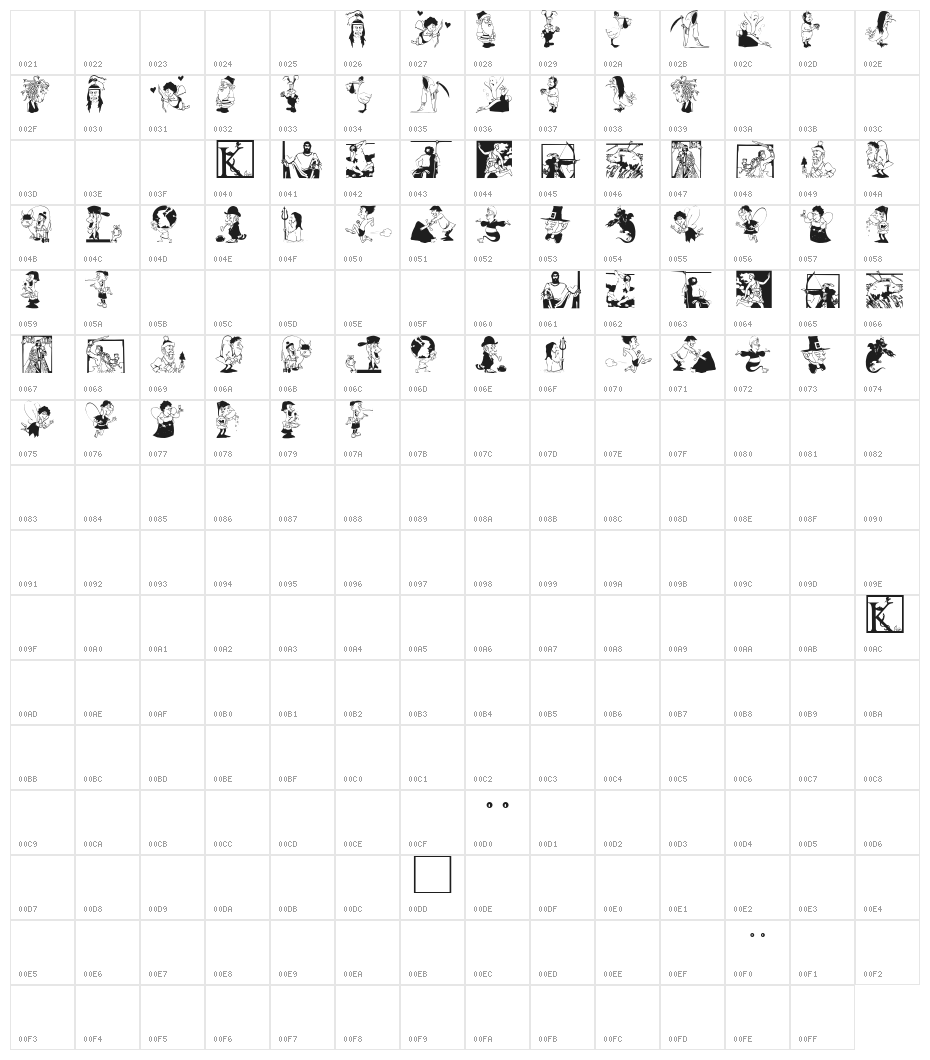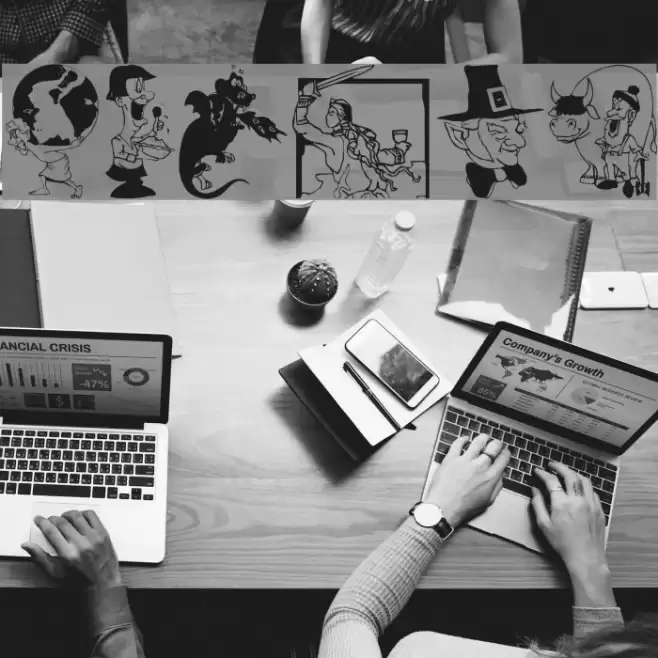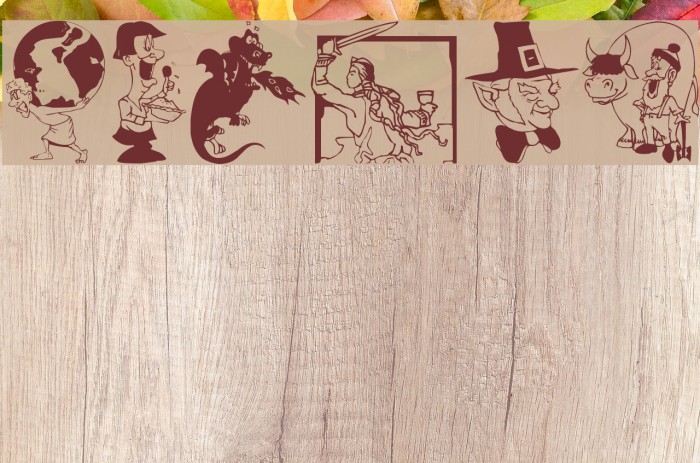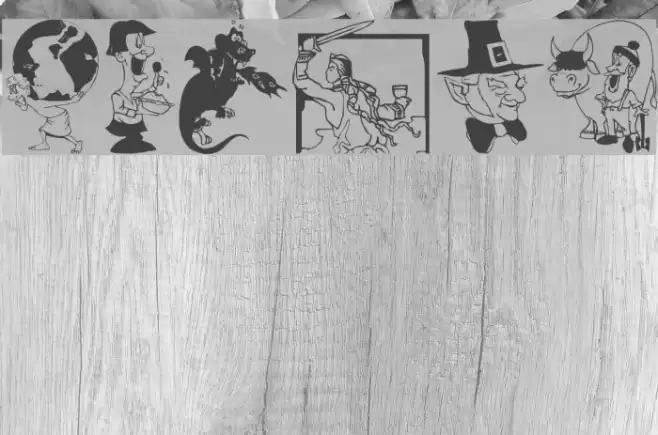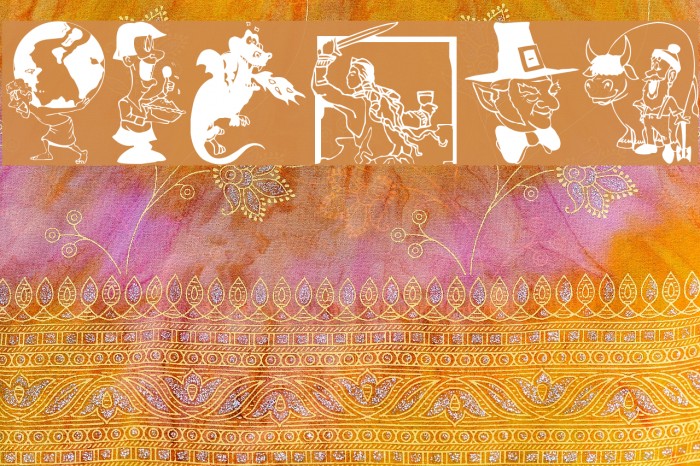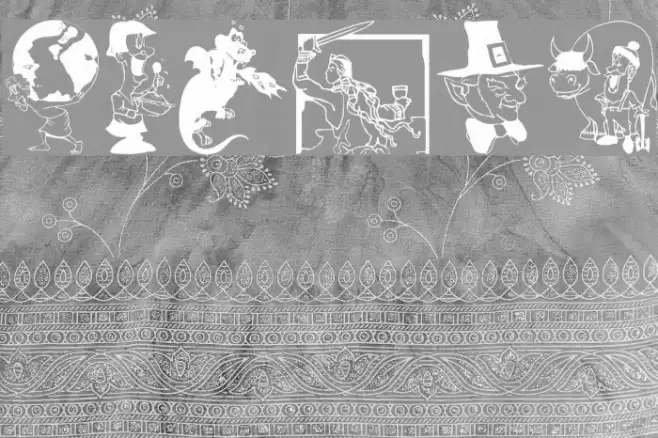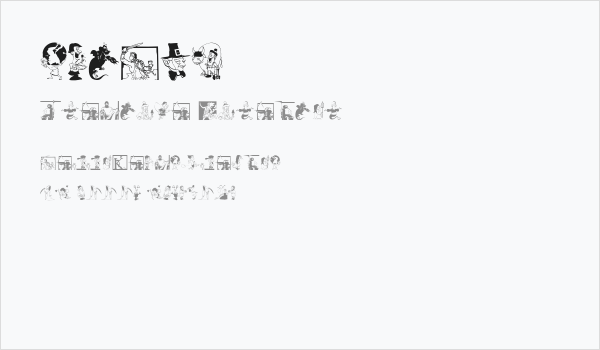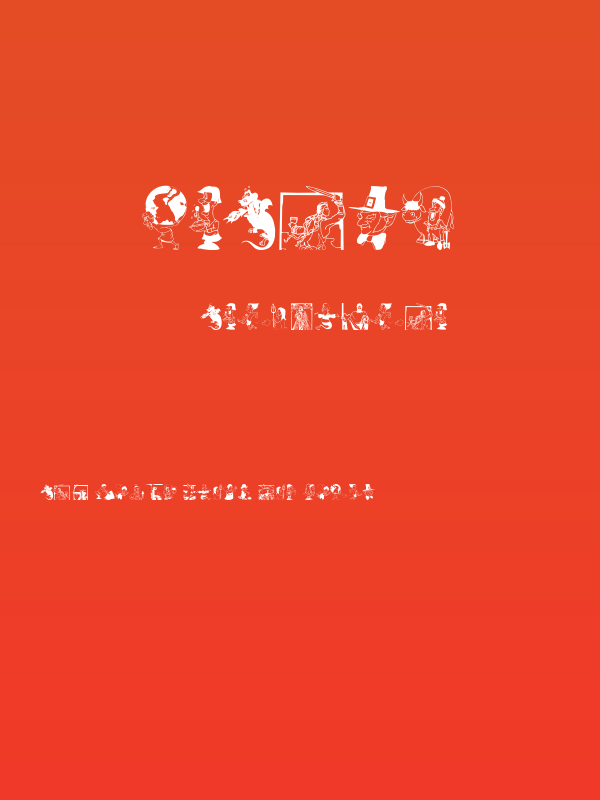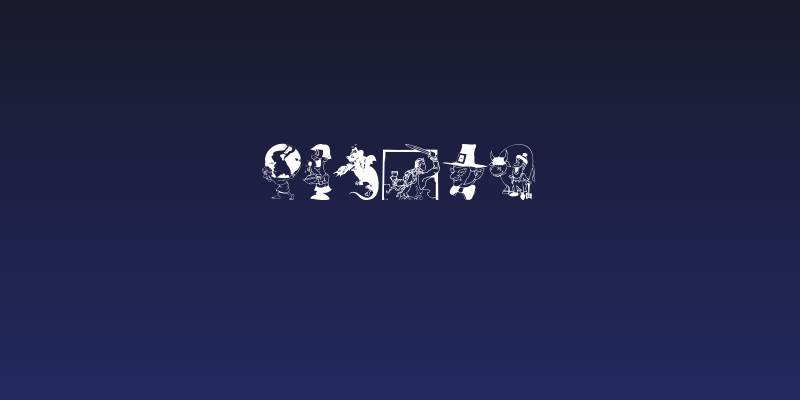
Myths_K Font
Myths_K Description
A highly decorative and illustrative font where each character is represented by a unique cartoon-style drawing depicting mythological or legendary figures and creatures. The glyphs are detailed, playful, and visually complex, making each letter or symbol a miniature artwork.
| Overall Style | Decorative, Playful, Thematic |
| Use Case | Headlines, Posters, Themed Graphics, Logos |
| Proposed Projects | ChildrenΓ’β¬β’s books, fantasy posters, themed party invitations, educational materials, creative branding. |